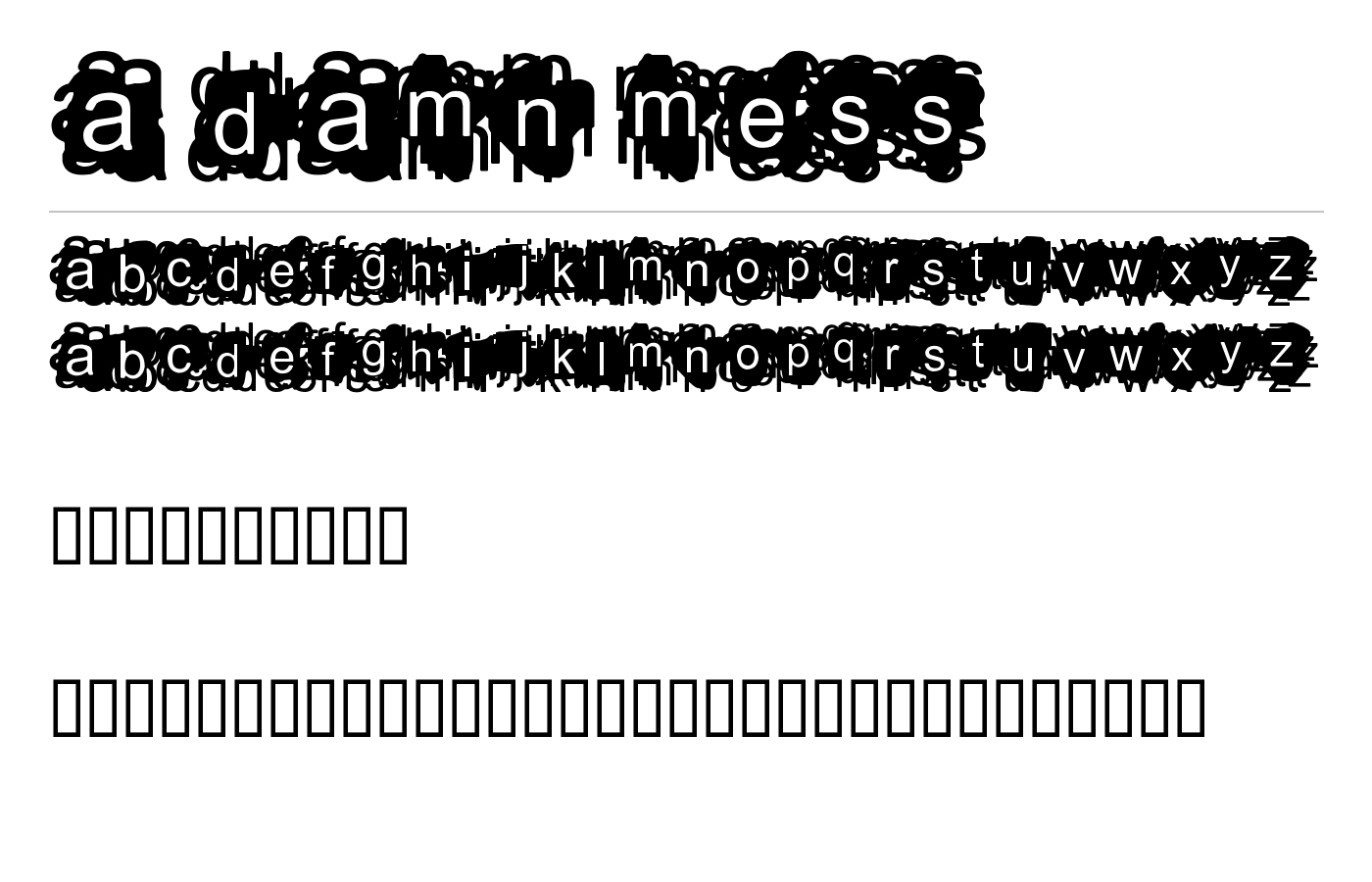
A Damn Mess is a bold, playful sans serif font characterized by its thick, overlapping strokes that create a chaotic, hand-drawn effect. Its irregular and heavy letterforms convey a sense of spontaneity and casual energy, making it ideal for artistic, informal, or expressive designs where an eye-catching, rebellious vibe is desired. This font works well for bold headlines, posters, and creative branding that aim to stand out with a raw, edgy personality.
A Damn Mess Font
About A Damn Mess Font